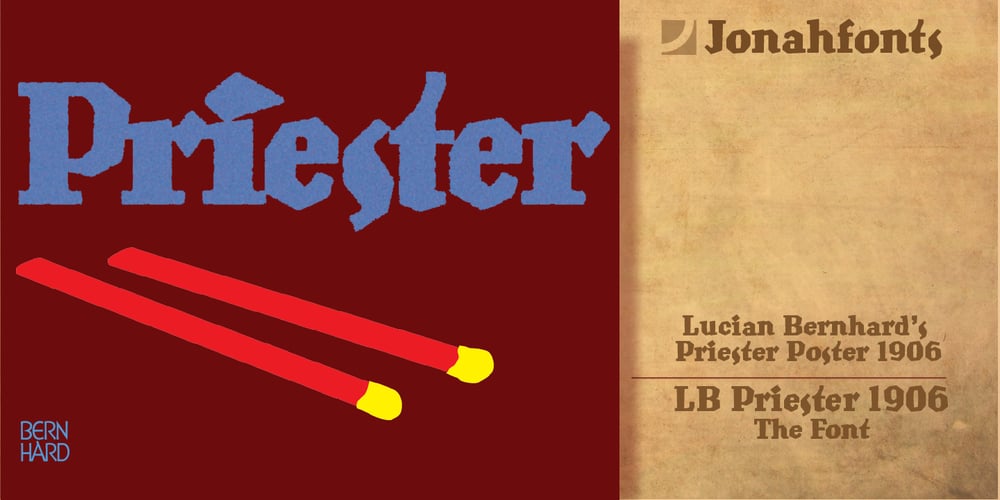
LB Priester 1906 Font Family was designed by Lucian Bernhard, John Nahmias and published by Jonahfonts. LB Priester 1906 contains 1 styles and family package options. There are many fonts inspired by Lucian Bernhard. I have always admired his 1906 award-winning poster: ‘Priester’— believed to be the birth of the ‘Sachplakat’ (or Object Poster). I have interpreted the hand lettered “Priester” logo into a formal typeface and only hope I have done it justice. Usage recommendations: Captions, fliers, packaging, cards, posters, ads, book jackets, manuals, bulletins, magazines, greetings, announcements.